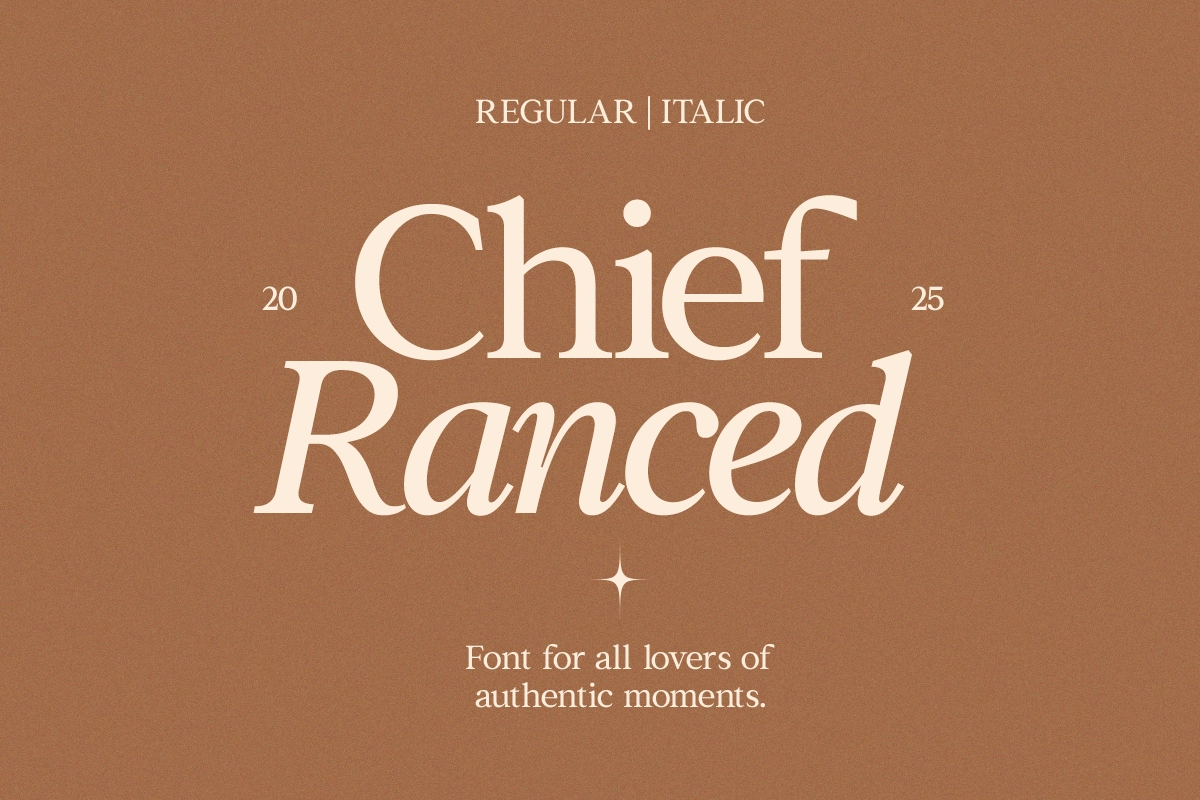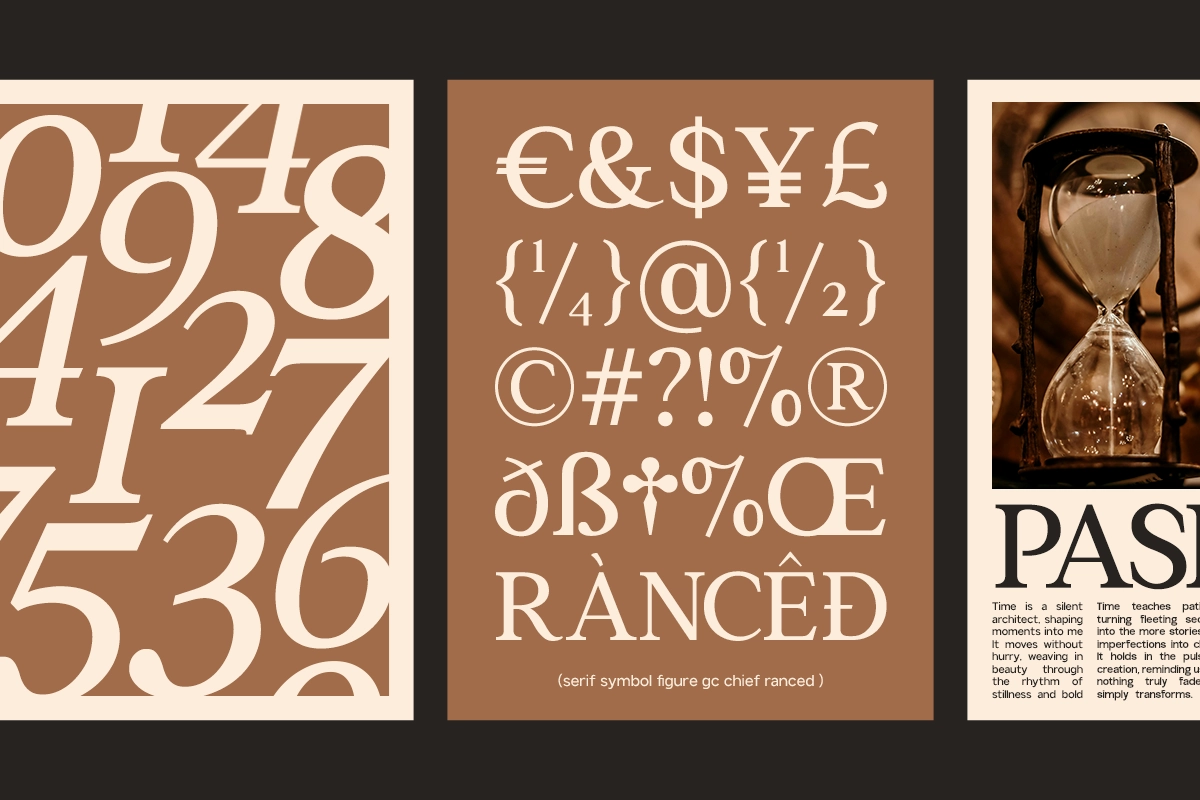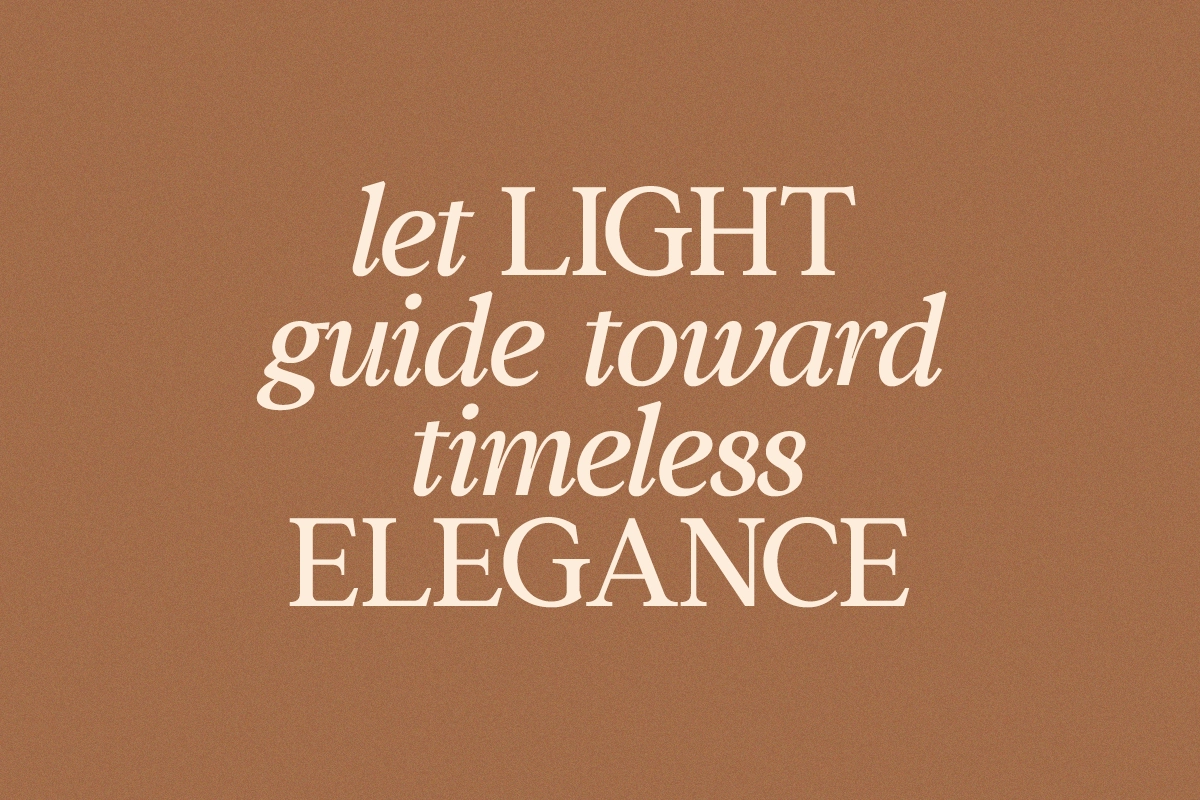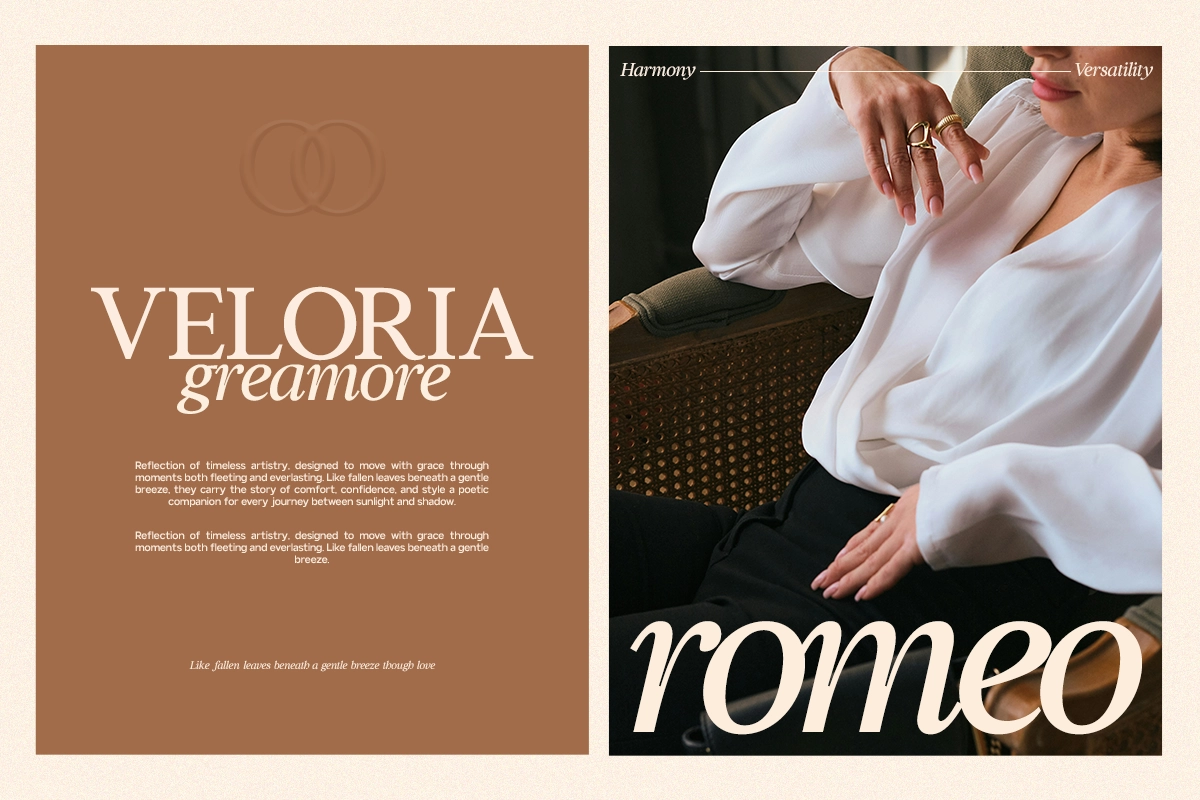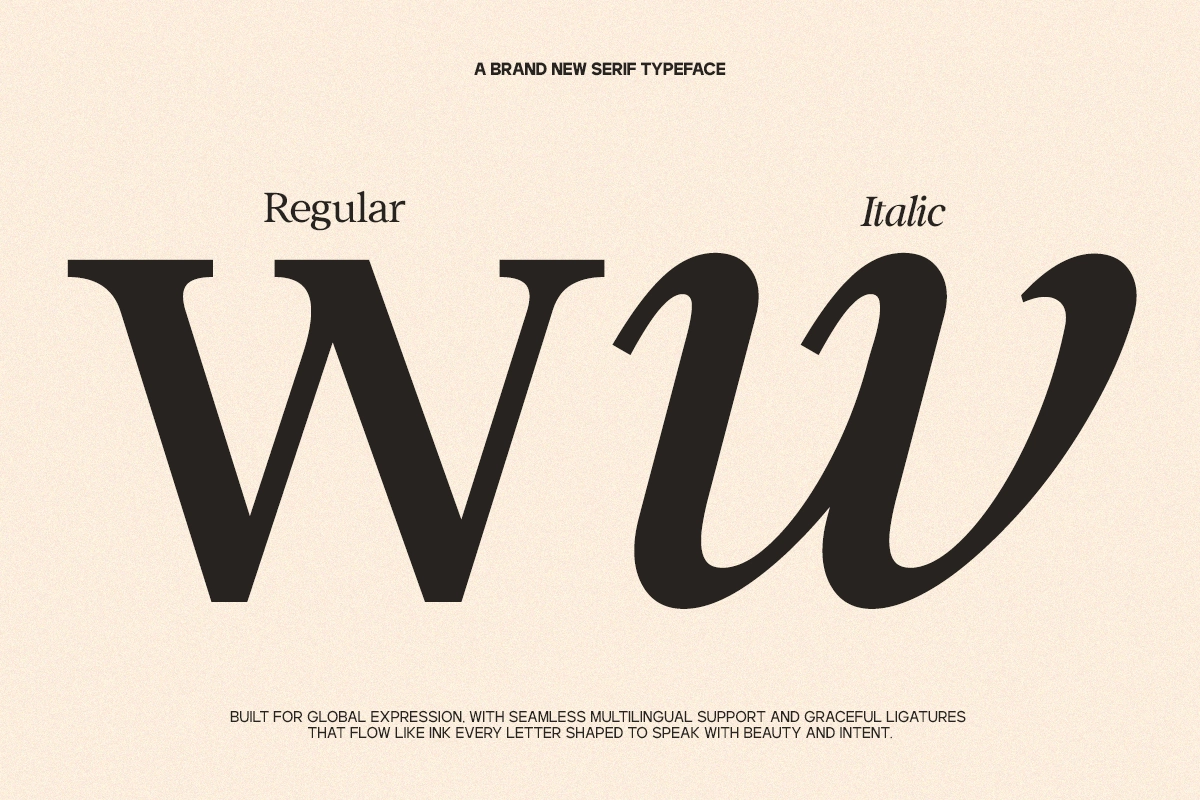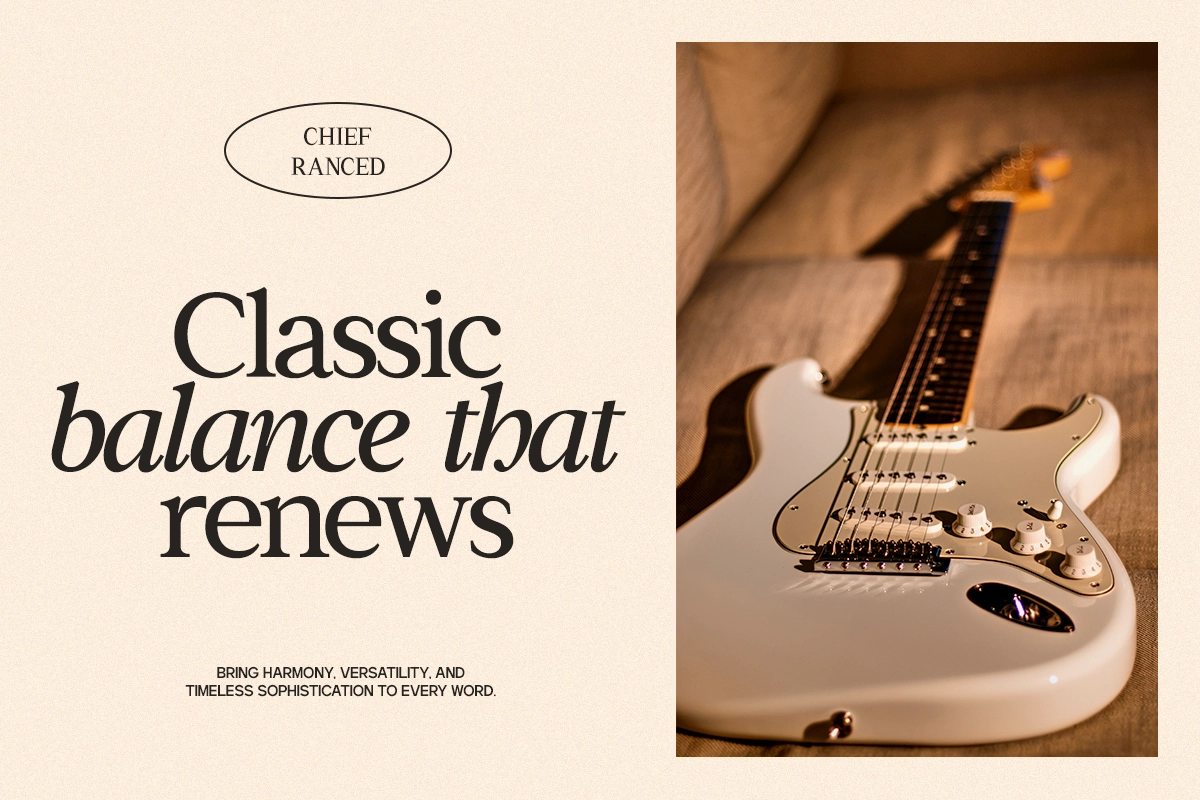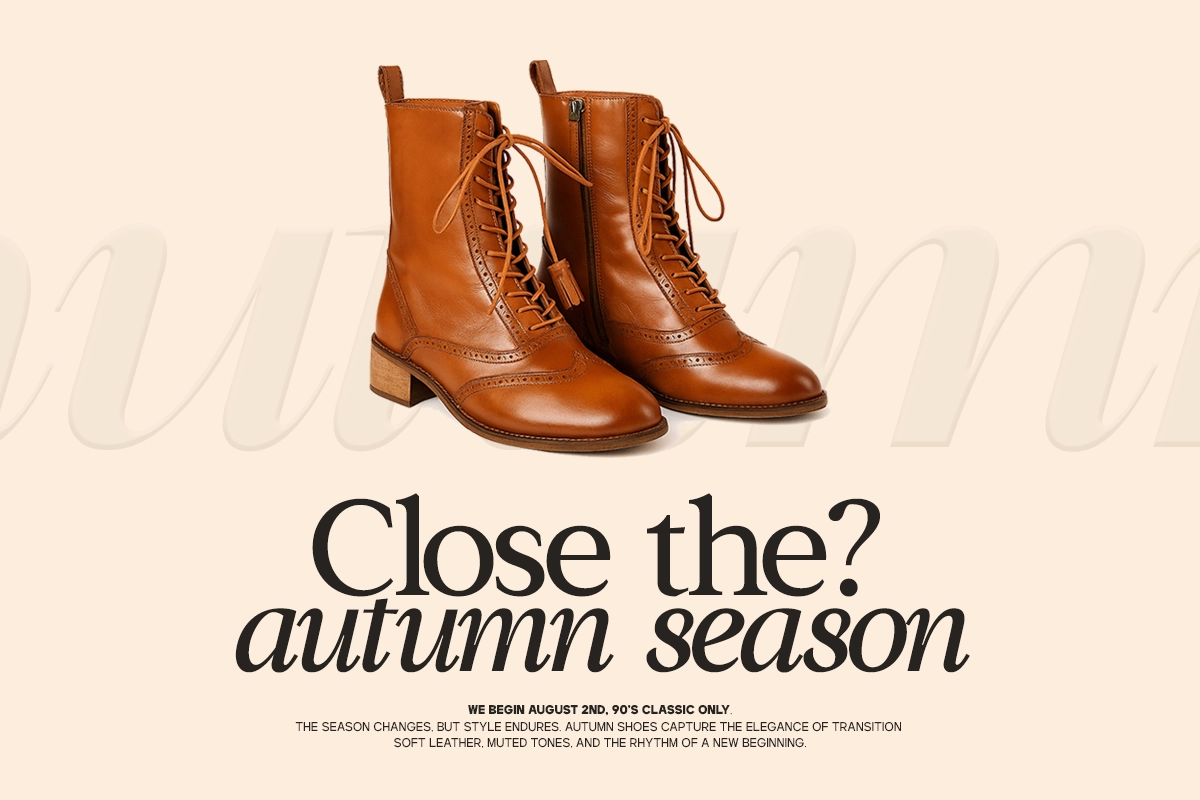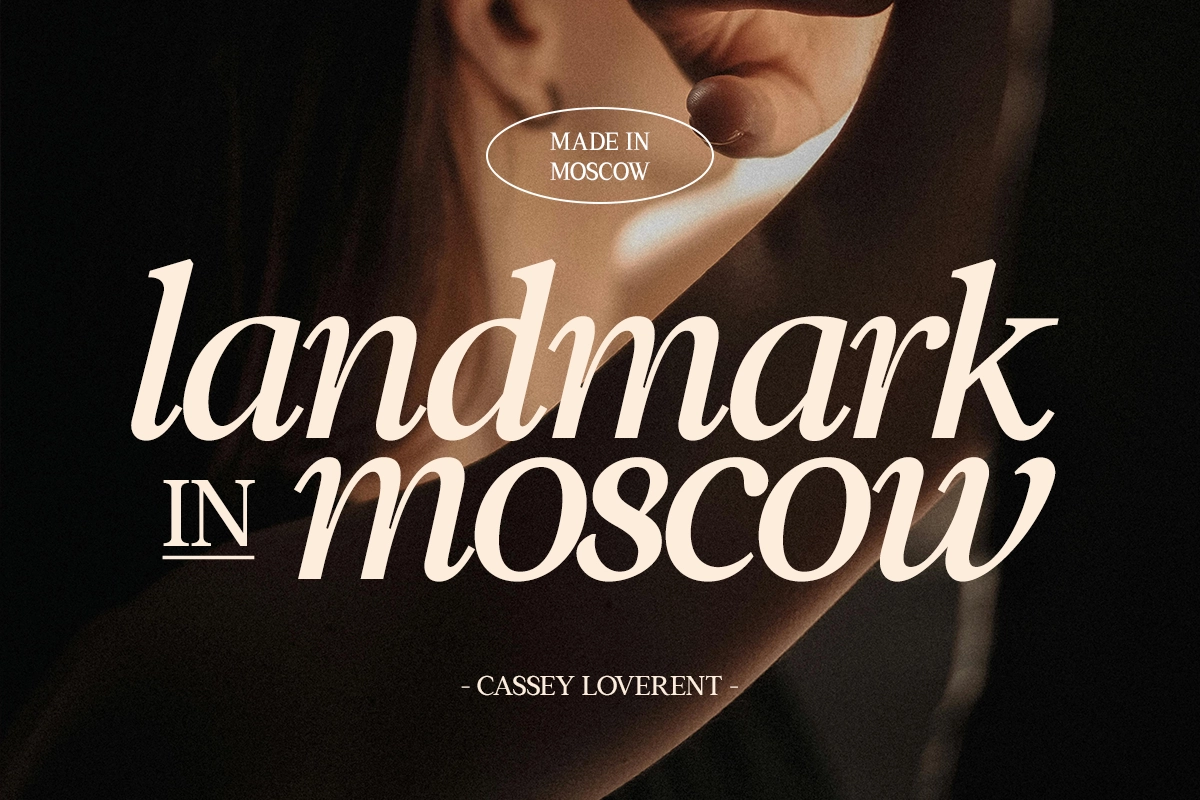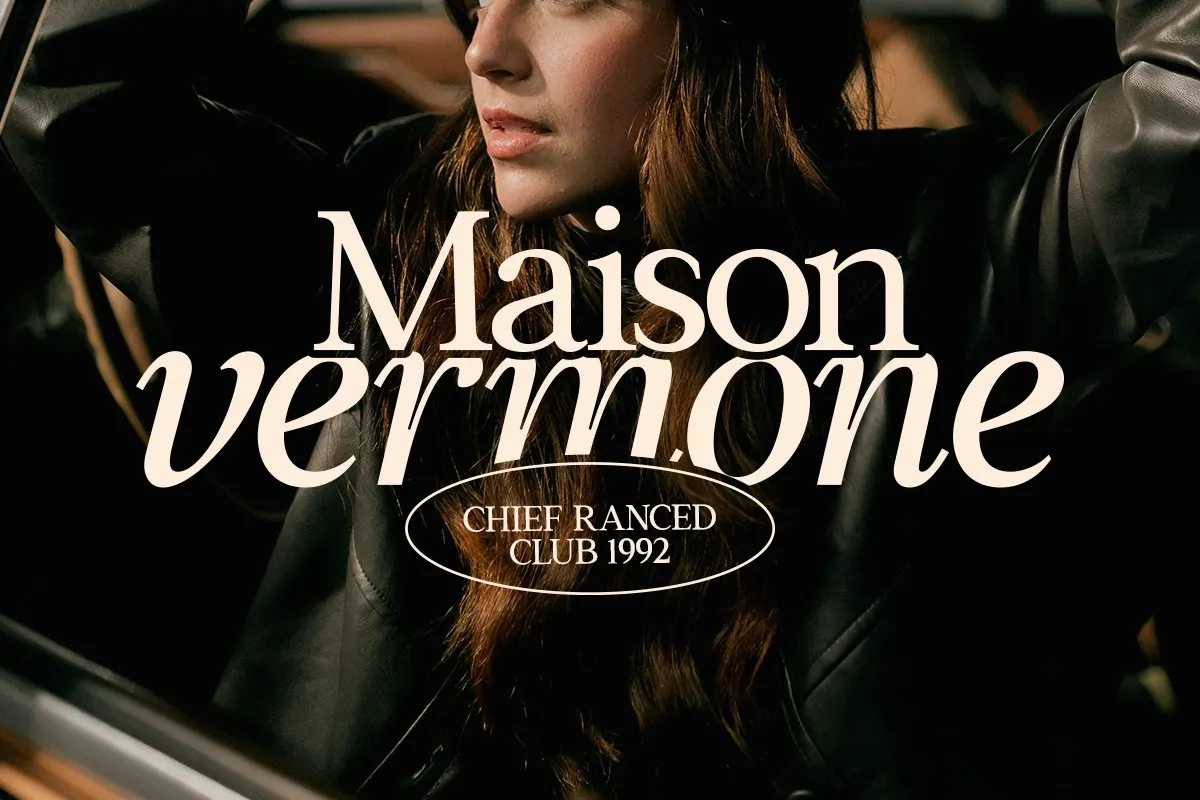
GC Chief Ranced – Serif Elegant Font
GC Chief Ranced – Serif Elegant Font is a sophisticated serif typeface that masterfully blends classic refinement with contemporary design versatility. Its graceful proportions, smooth curves, and precisely crafted serifs create a luxurious visual rhythm perfect for elevating any typographic project.
From subtle editorial text to bold headline treatments, GC Chief Ranced delivers exceptional readability and elegant character across its complete family. The balanced contrast and delicate detailing make it ideal for fashion branding, wedding invitations, luxury packaging, magazine layouts, premium logos, and high-end visual identities.
With both regular and italic styles, GC Chief Ranced provides designers with a timeless typographic foundation that exudes warmth, sophistication, and modern polish for standout creative work.
• Numbers & Punctuation
• Regular & Italic Styles
• Elegant Serif Construction